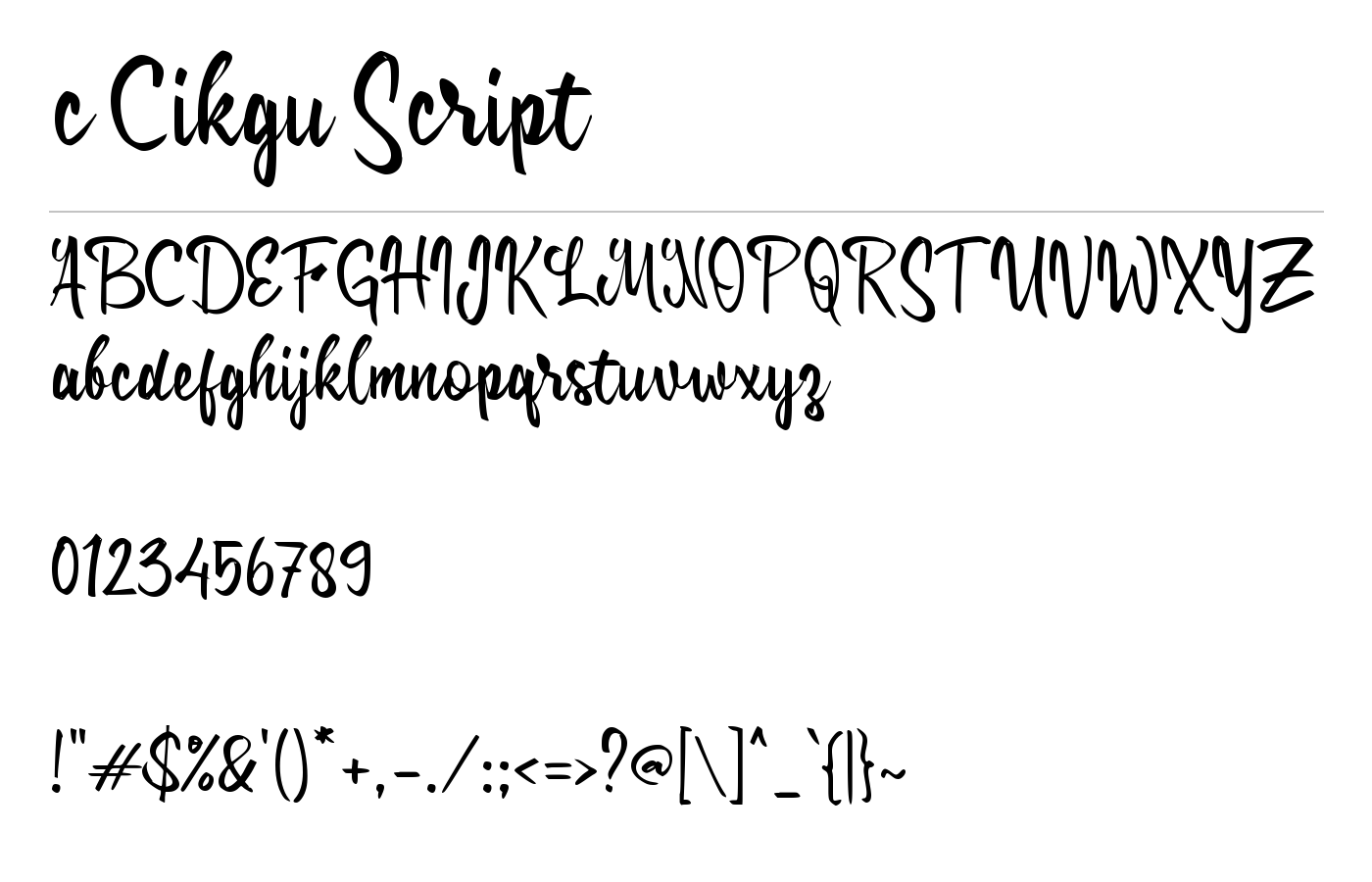
Cikgu Script is a lively, handwritten script font with a casual yet elegant feel, featuring smooth, flowing strokes and moderate contrast that give it a friendly and approachable personality. Its tall, slightly condensed letterforms and playful uppercase characters make it ideal for creative branding, invitations, and social media graphics, where a personal, warm touch is desired. This font works well in headlines and decorative text, adding charm and a handcrafted look to any design.
c Cikgu Script Font
About c Cikgu Script Font